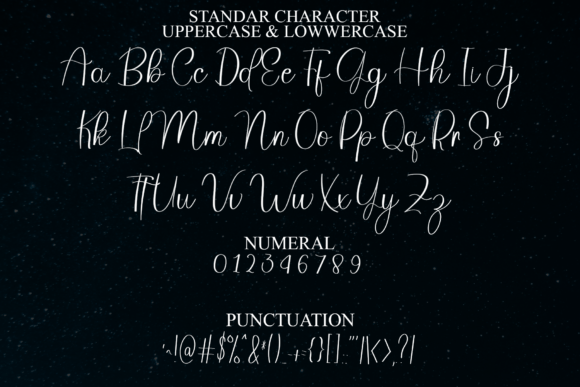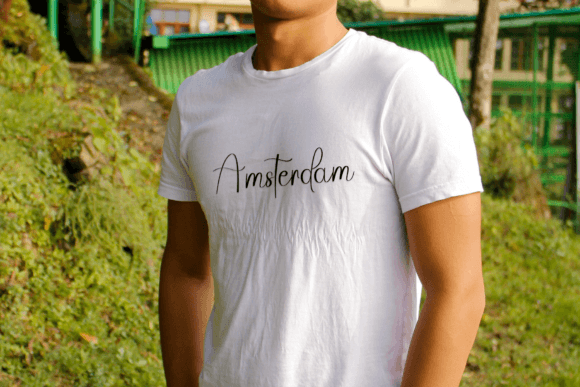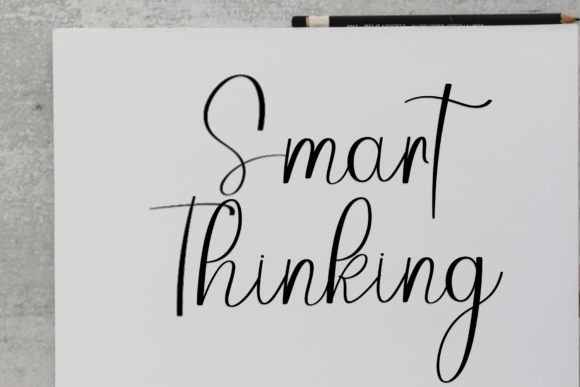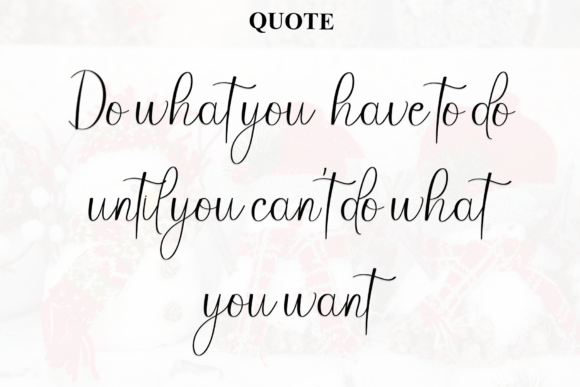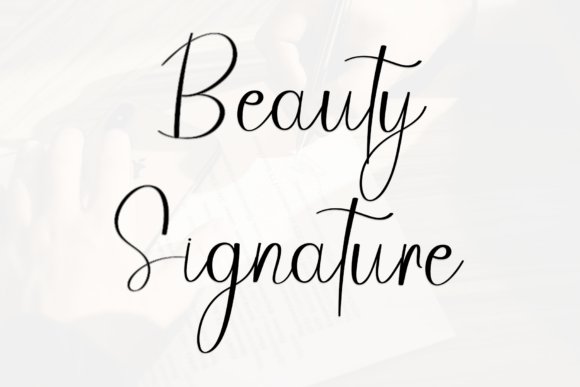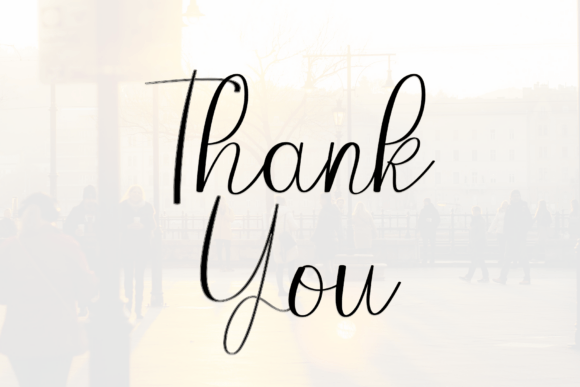
Introduction to Everythink Signature Font
Everythink Signature is a festive and merry typeface that captures the spirit of the holiday season.
Key Features of Everythink Signature Font
Why Choose Everythink Signature Font?
Everythink Signature Font offers exceptional quality and versatility, making it a valuable addition to your design toolkit. Whether you’re creating for personal projects or commercial use, Everythink Signature Font delivers professional results.